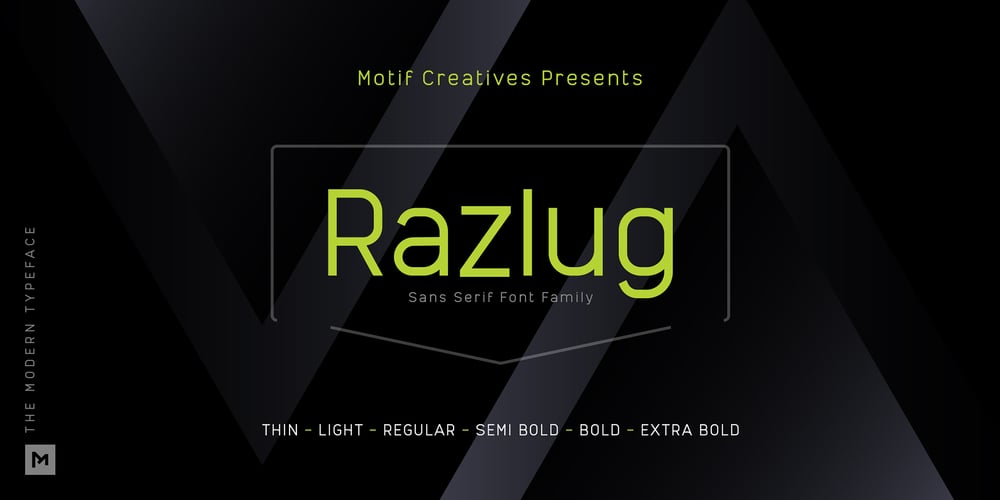
Razlug Font Family was designed by Muhammad Ikram and published by Motif Creatives. Razlug contains 12 styles and family package options. Razlug is a modern sans serif typeface. Consists of 6 weights and its italics. it is a clean font featuring a variety of sets from thin to bold making it versatile for use for branding, headlines, digital media, logos, more general text, posters, and print media. Inspired by mid geometric/technology fonts. Founded in 2021 by motif creatives.